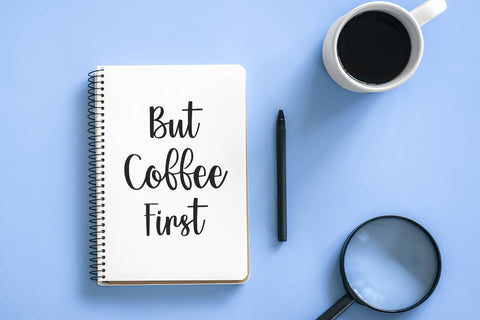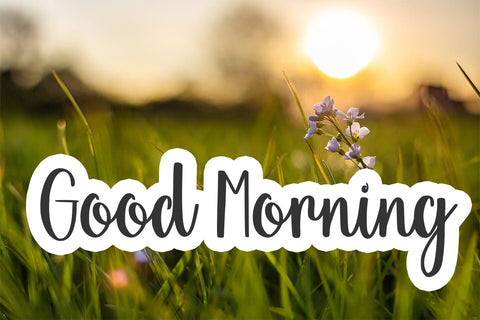
Wonderfuls
introducing
WONDERFULS
- crafty handwritten Script -
WONDERFULS is great for quotes, branding, t-shirt designs, tote bag designs, cards, banners, social media, and anything of craft projects.